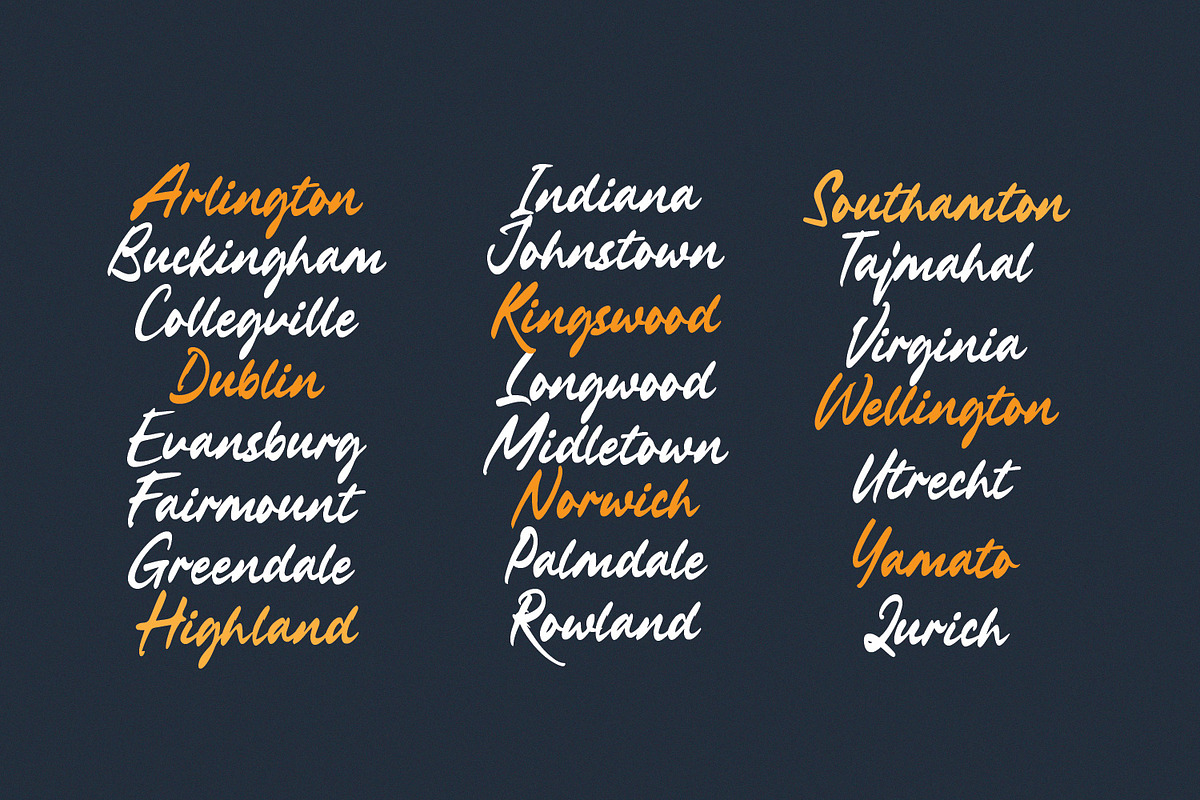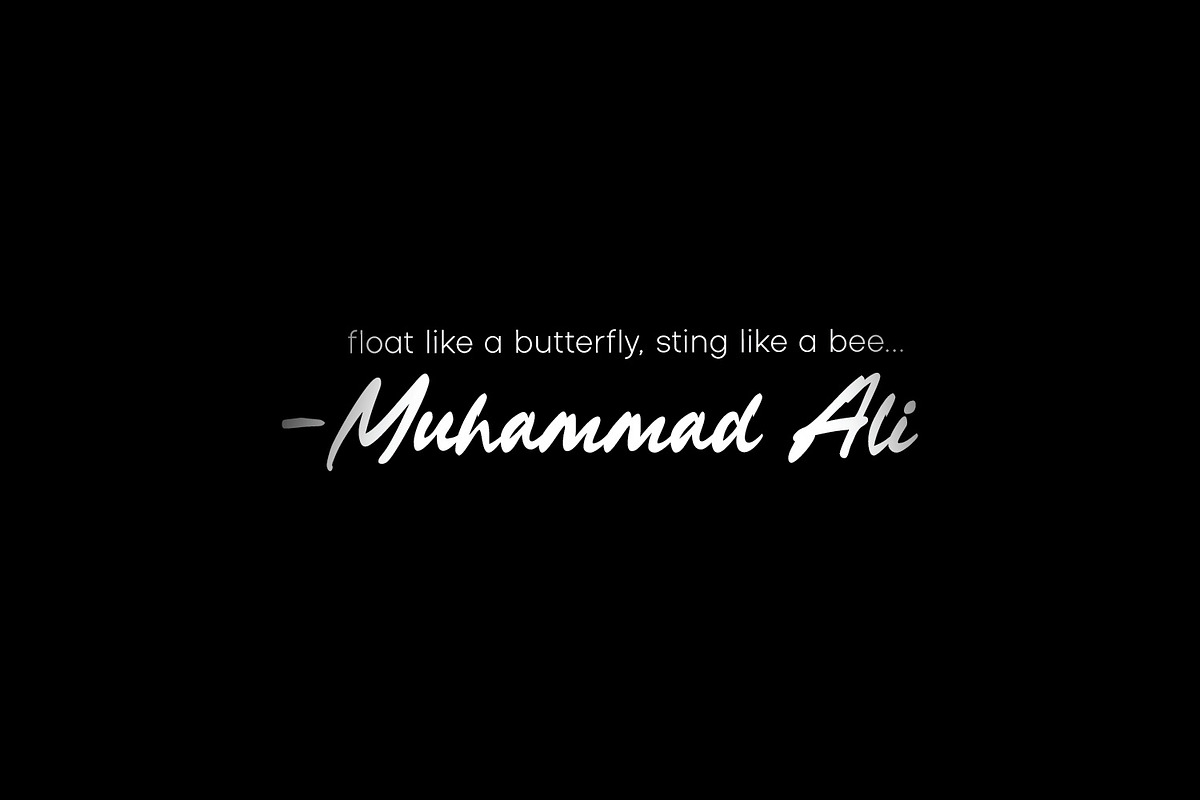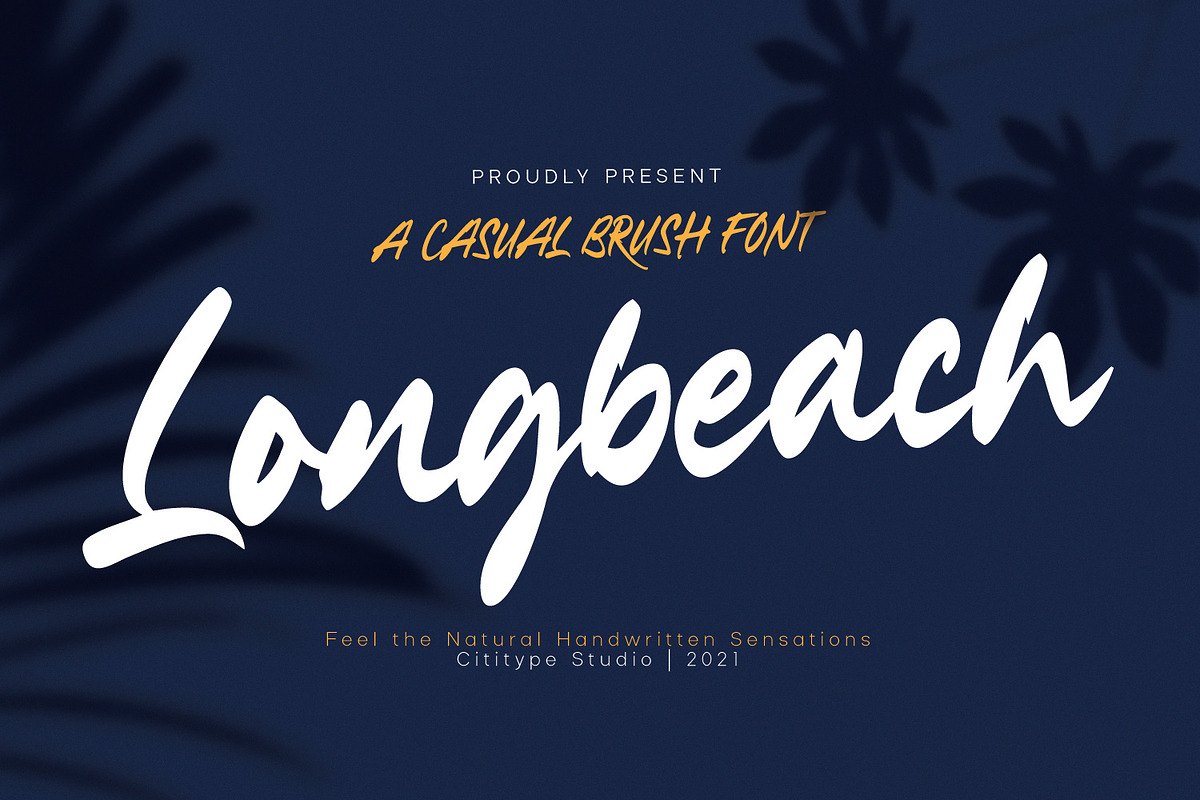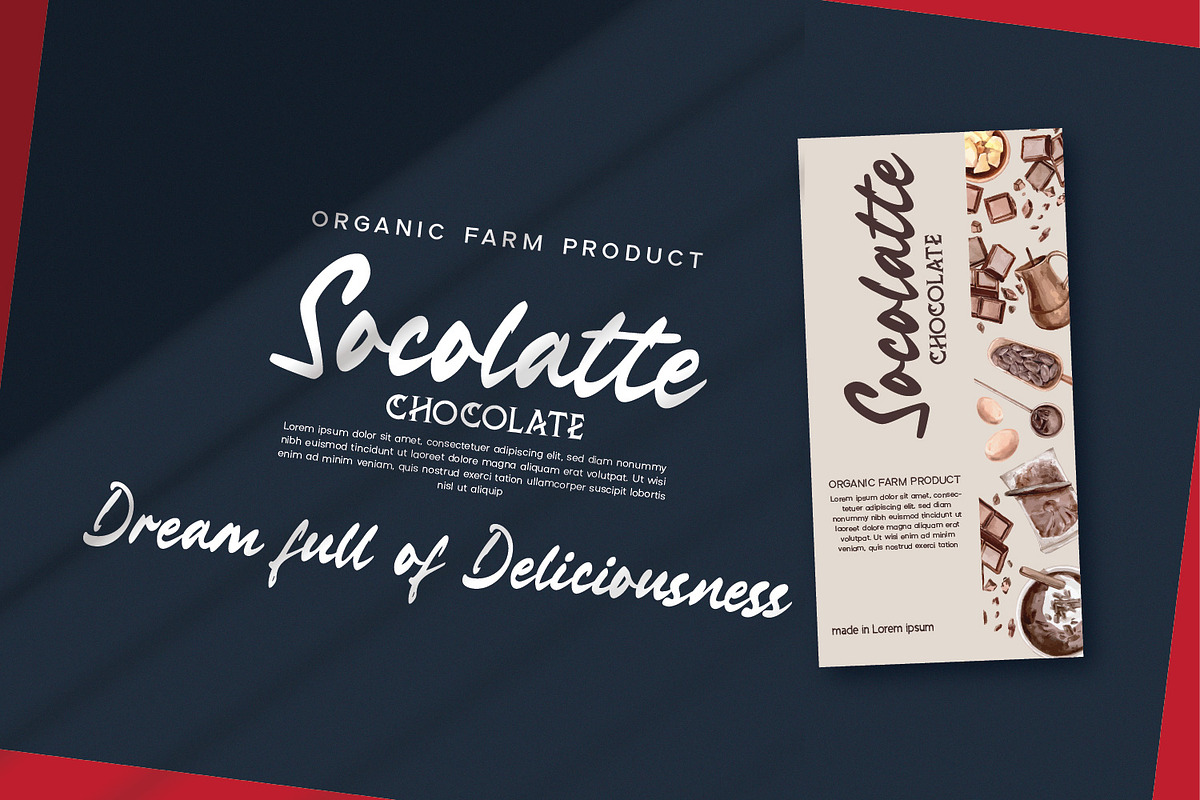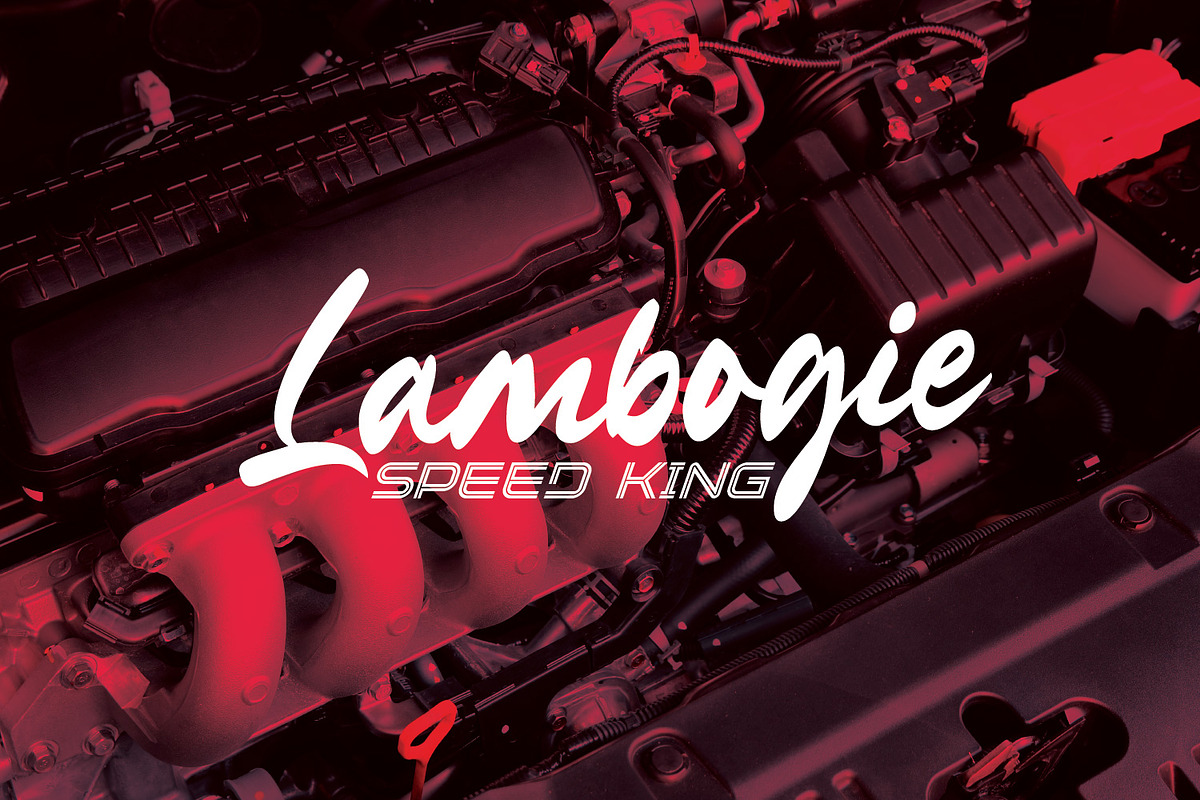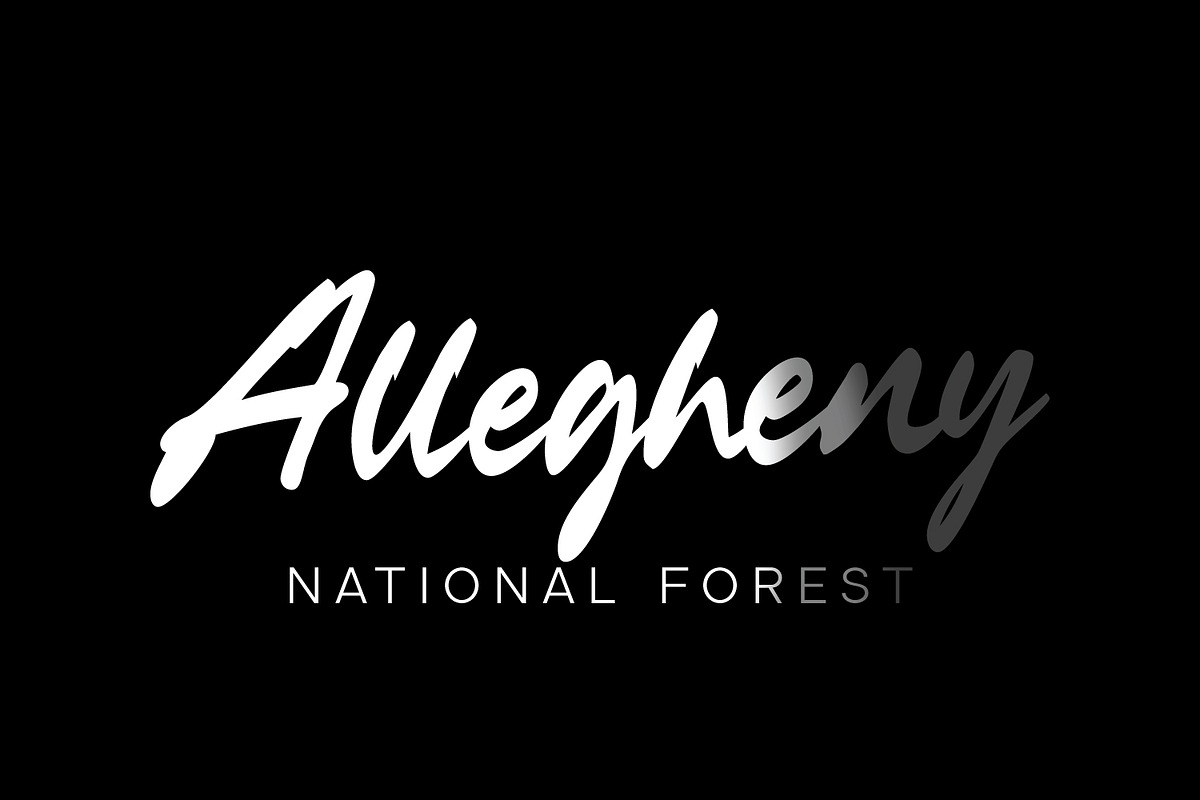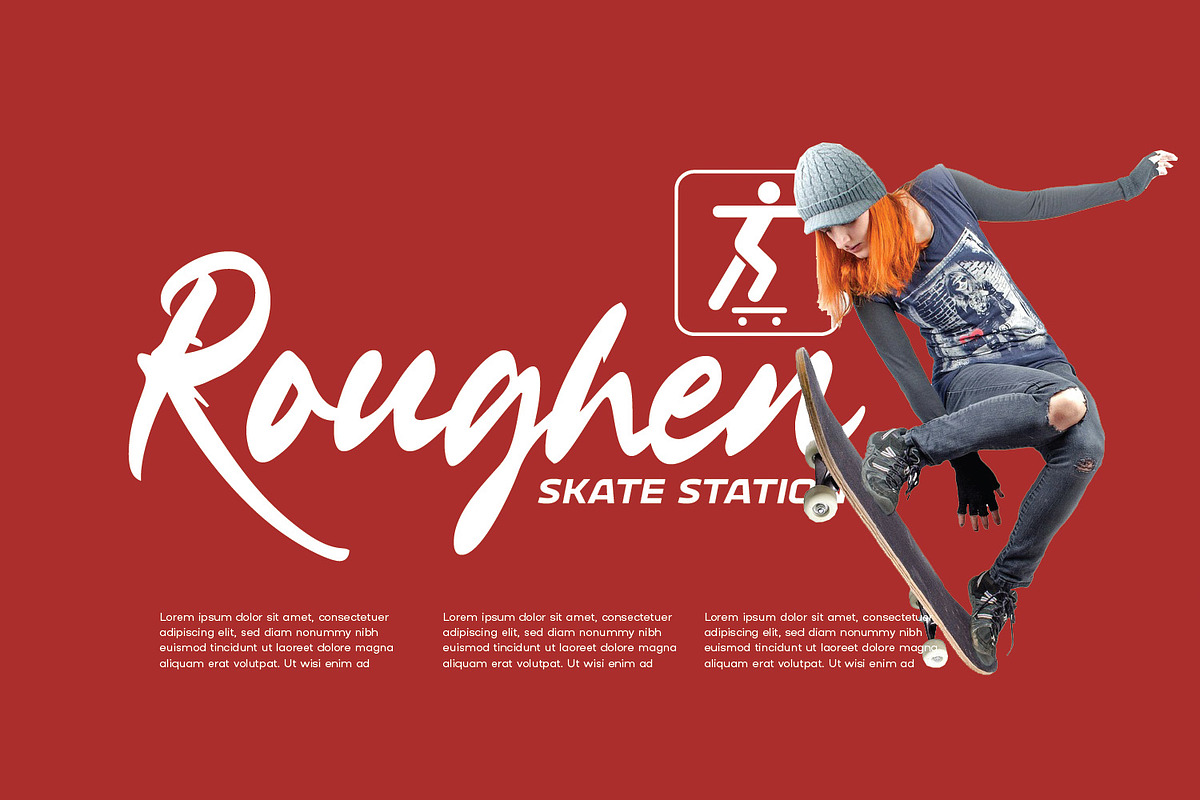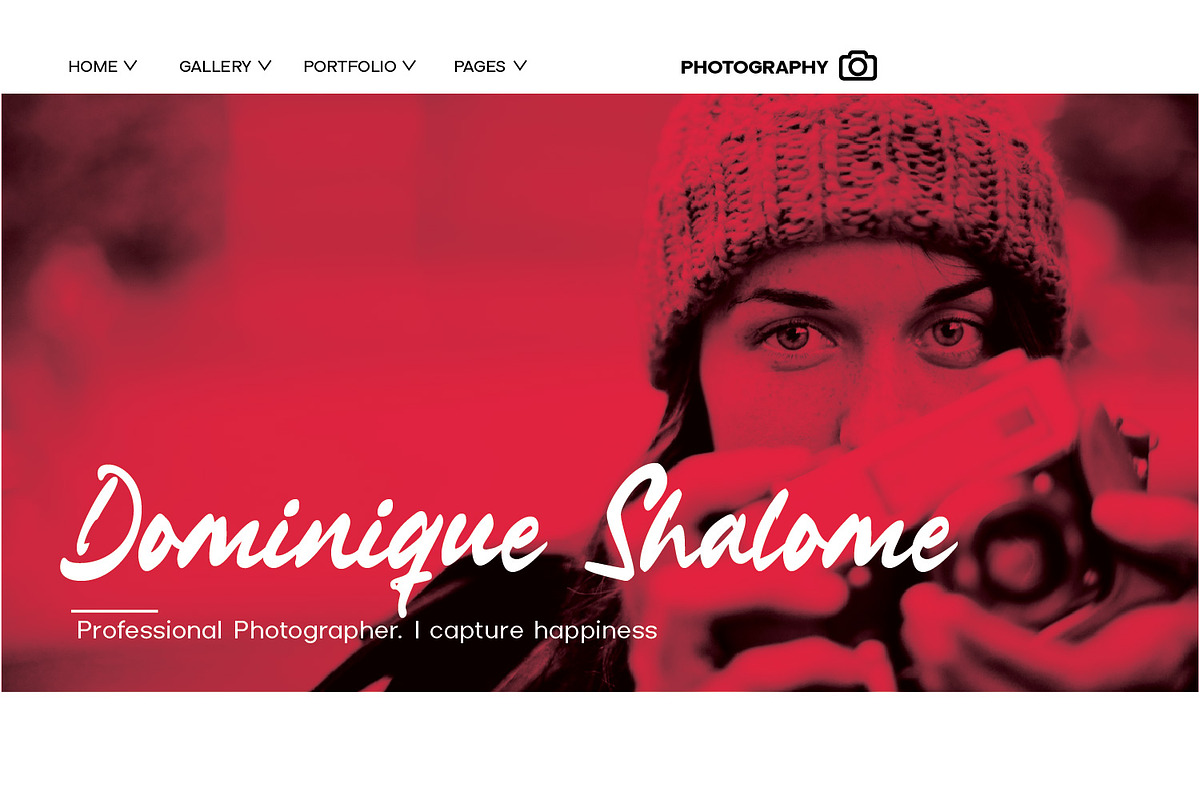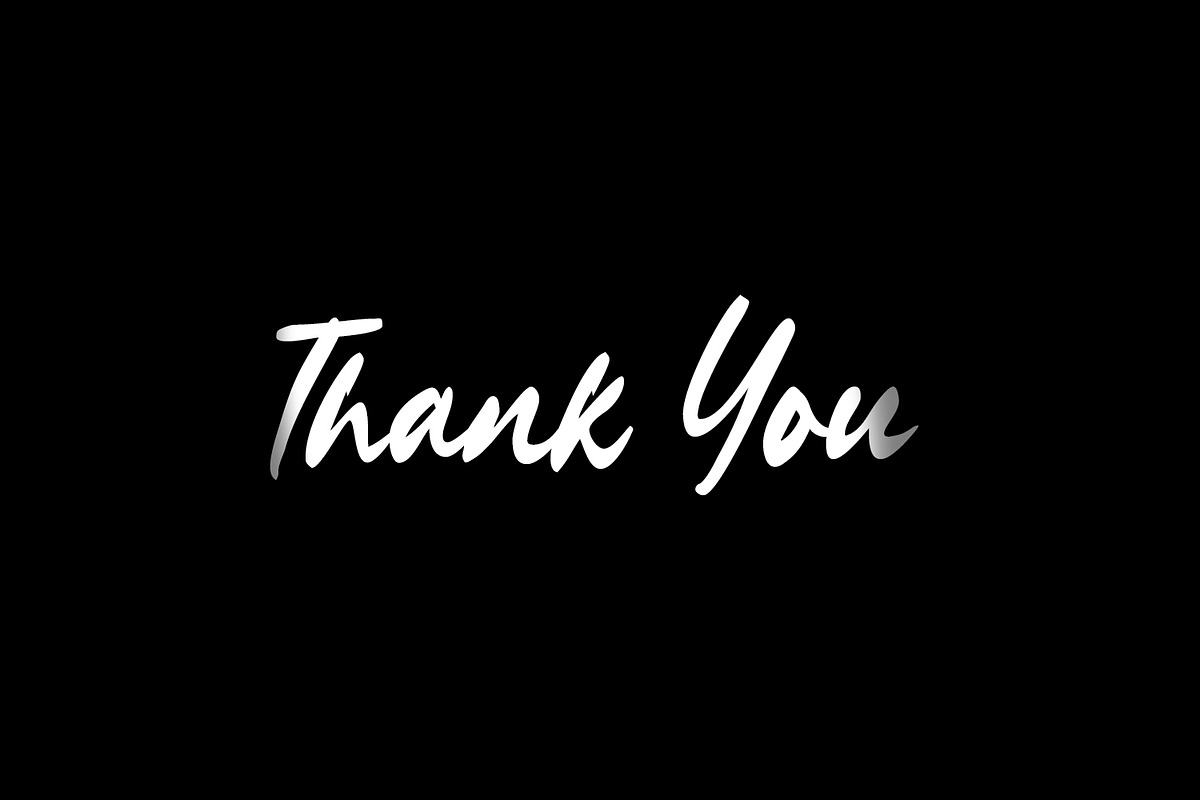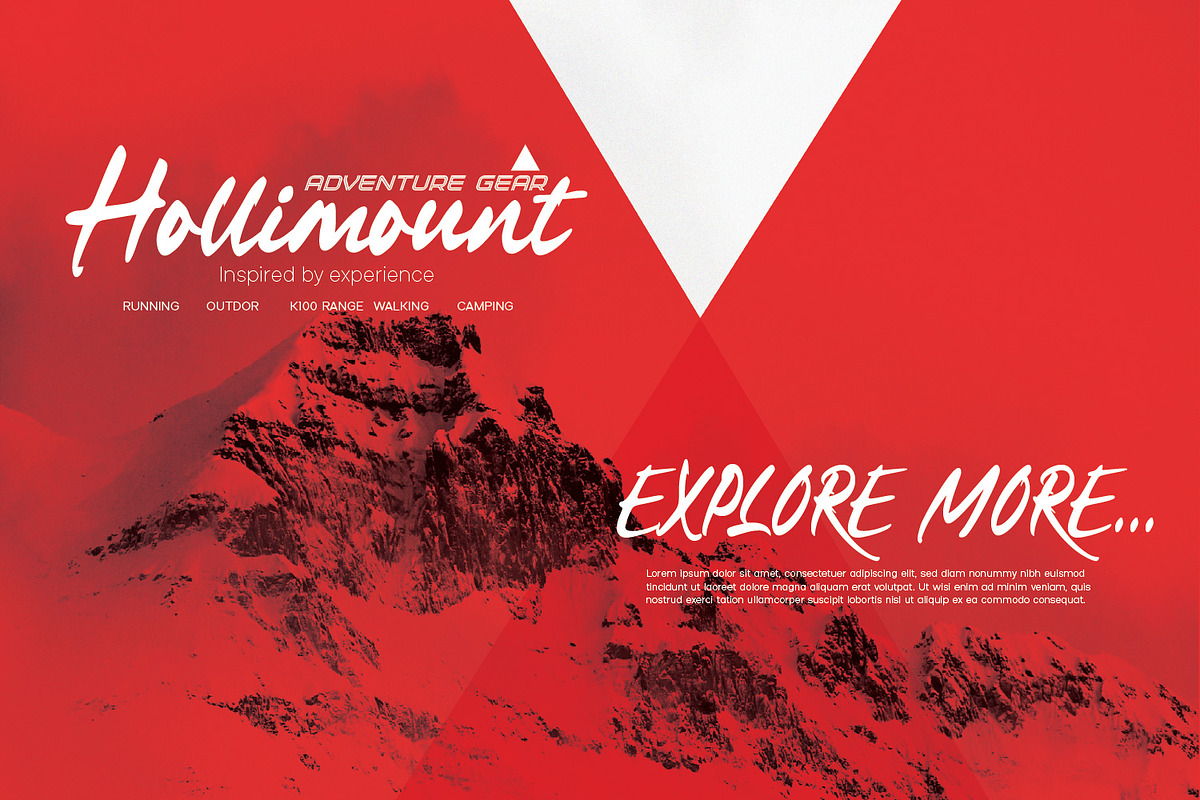
Longbeach - Natural Brush Font
Longbeach is a casual yet elegant brush font, it has natural brush stroke that perfect for branding project, household appliance design, product packaging, or other wonderful design